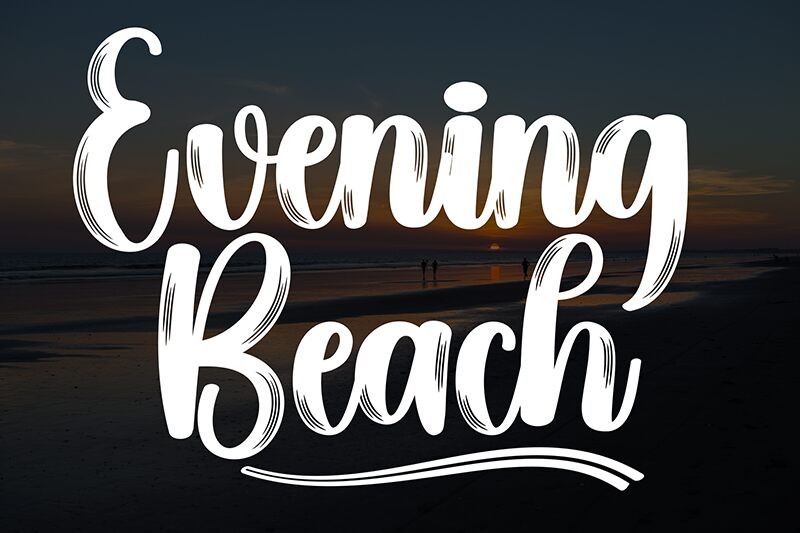
Evening Beach
Evening Beach font by Scratchones is a brush typeface with a textured appearance and an overall warm feel. Letters have a handwritten style that gives them both a personal and humanistic touch. Vintage effects and an artisanal quality fit nicely to bring an aesthetic similar to the notes in old journals or letters written at sea.